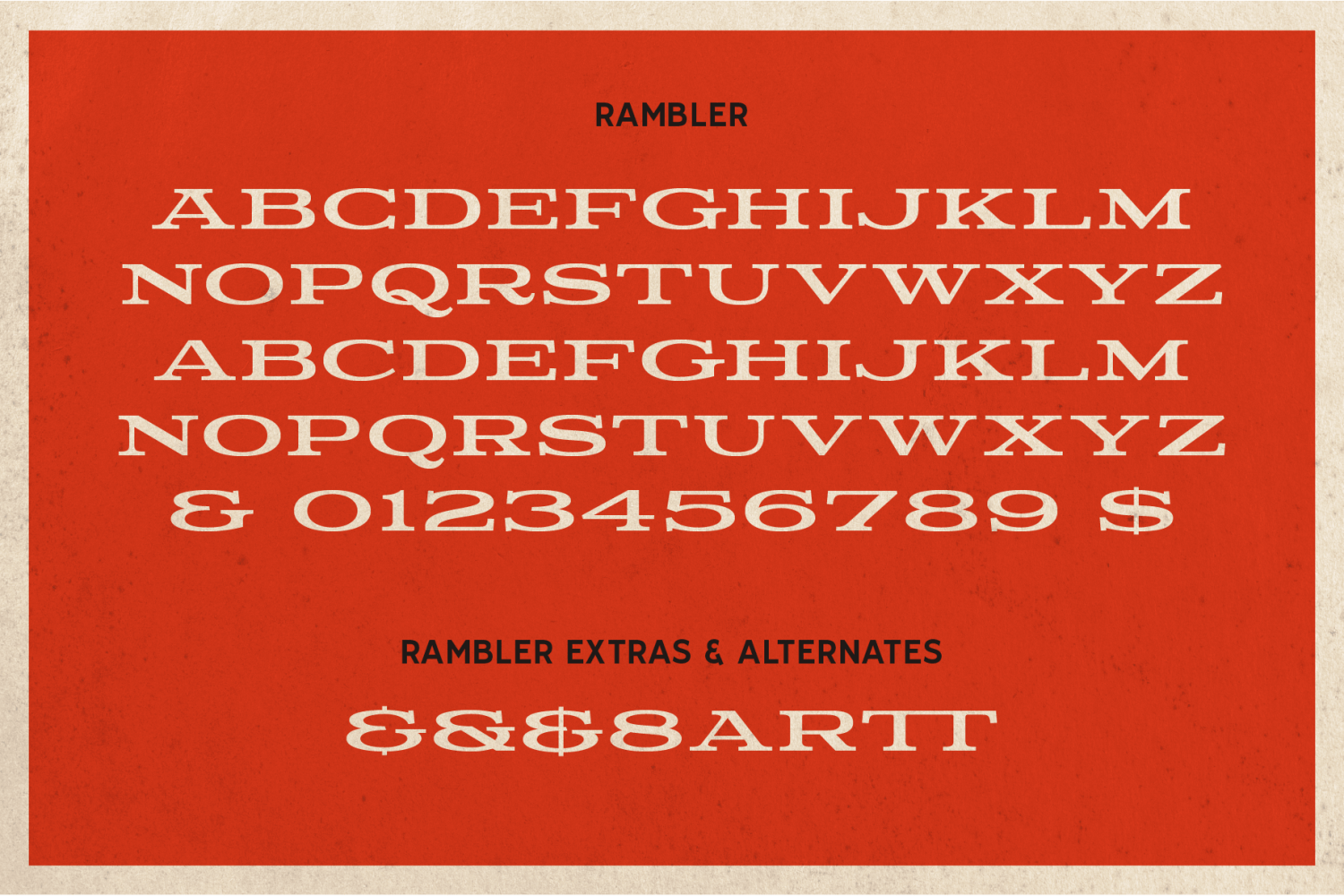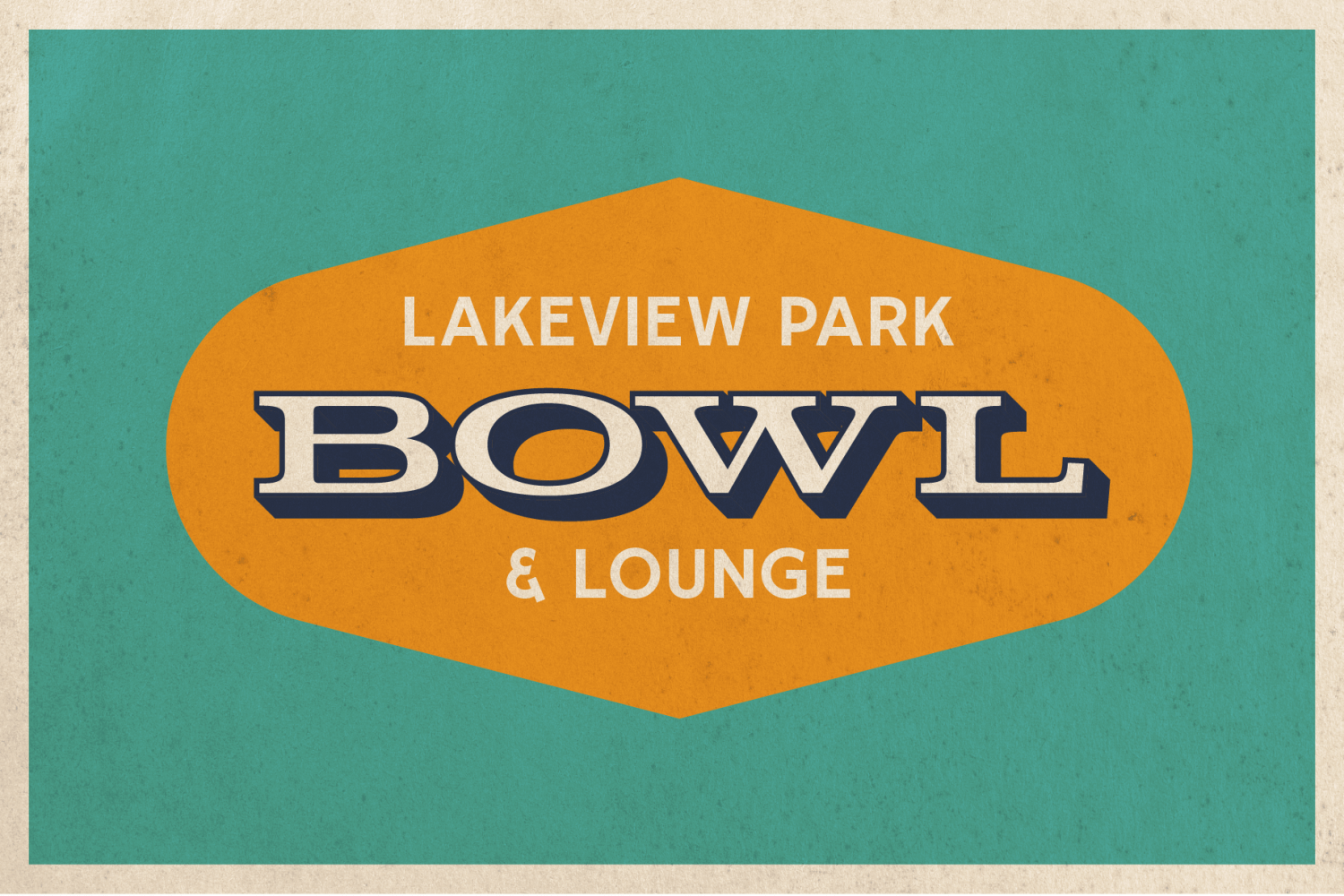
About Rambler
All caps A-Z Numerals and punctuation Accent characters 8 Stylistic alternates 7 Ligatures Rambler is retro font based on classic car emblems of the 1960s. This extended style features short letters with wide serifs for a uniquely mid century look. It\’s…